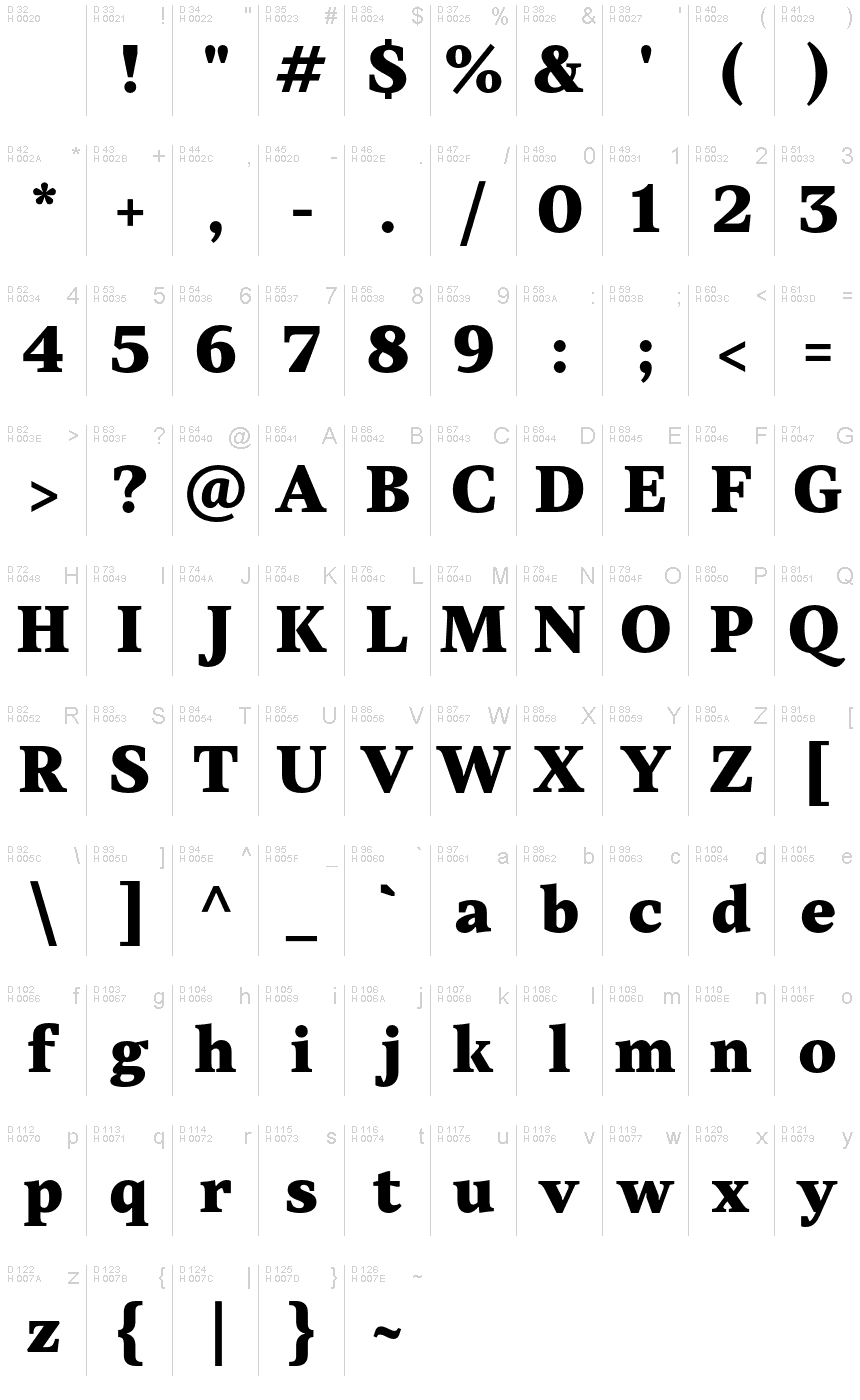
TT Jenevers Trl Black
TT Jenevers Black is a bold and striking serif font that commands attention. Designed by TypeType Foundry, this extra-bold typeface is perfect for projects that require a touch of elegance and sophistication. Whether you're designing a logo, creating an eye-catching poster, or crafting a stunning book cover, TT Jenevers Black is sure to make your text stand out. With its thick and sturdy letters, this font evokes a sense of strength and reliability. Use it for headlines, titles, or any other text that needs to be emphasized. TT Jenevers Black is the perfect choice for any project that requires a bold and confident font.